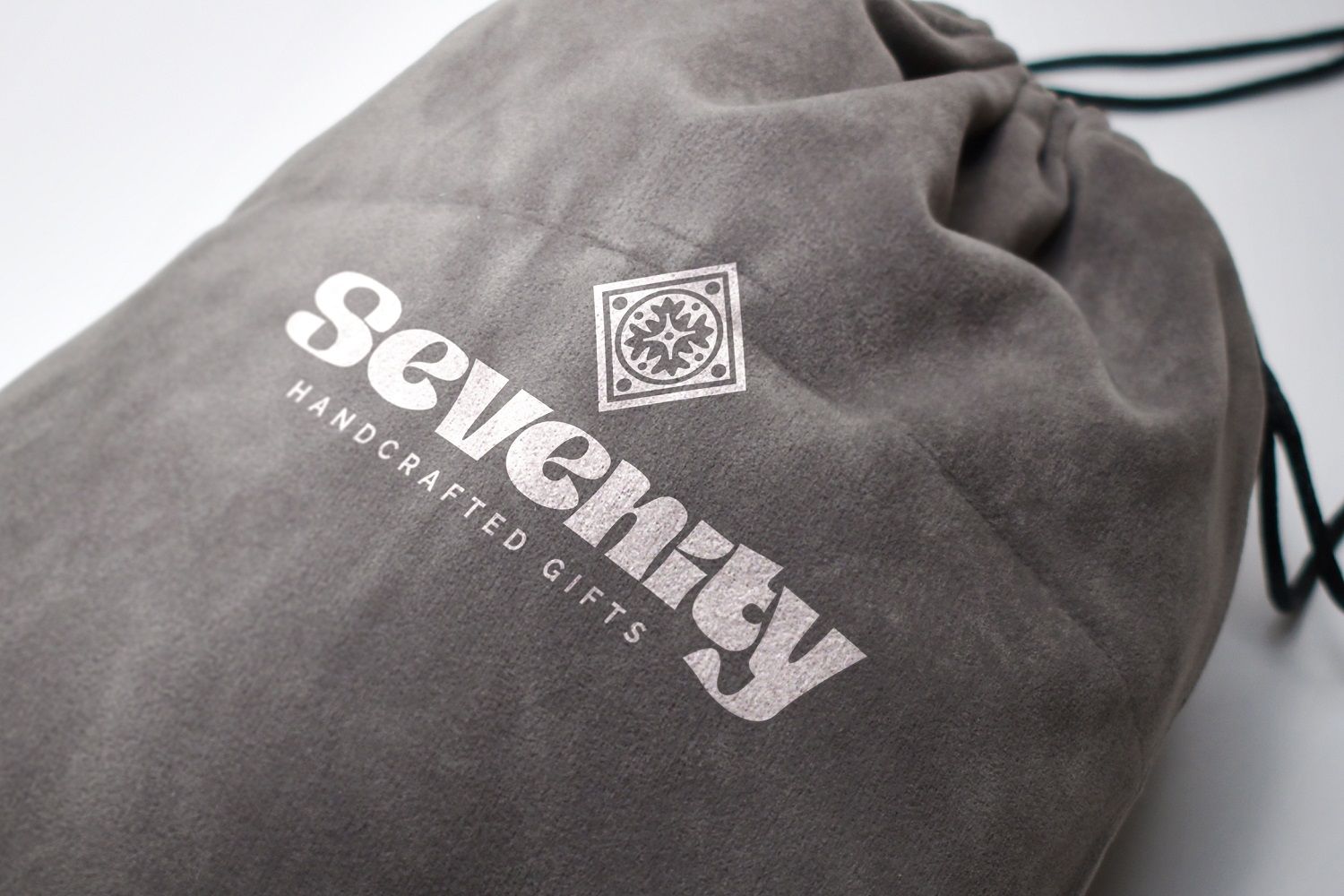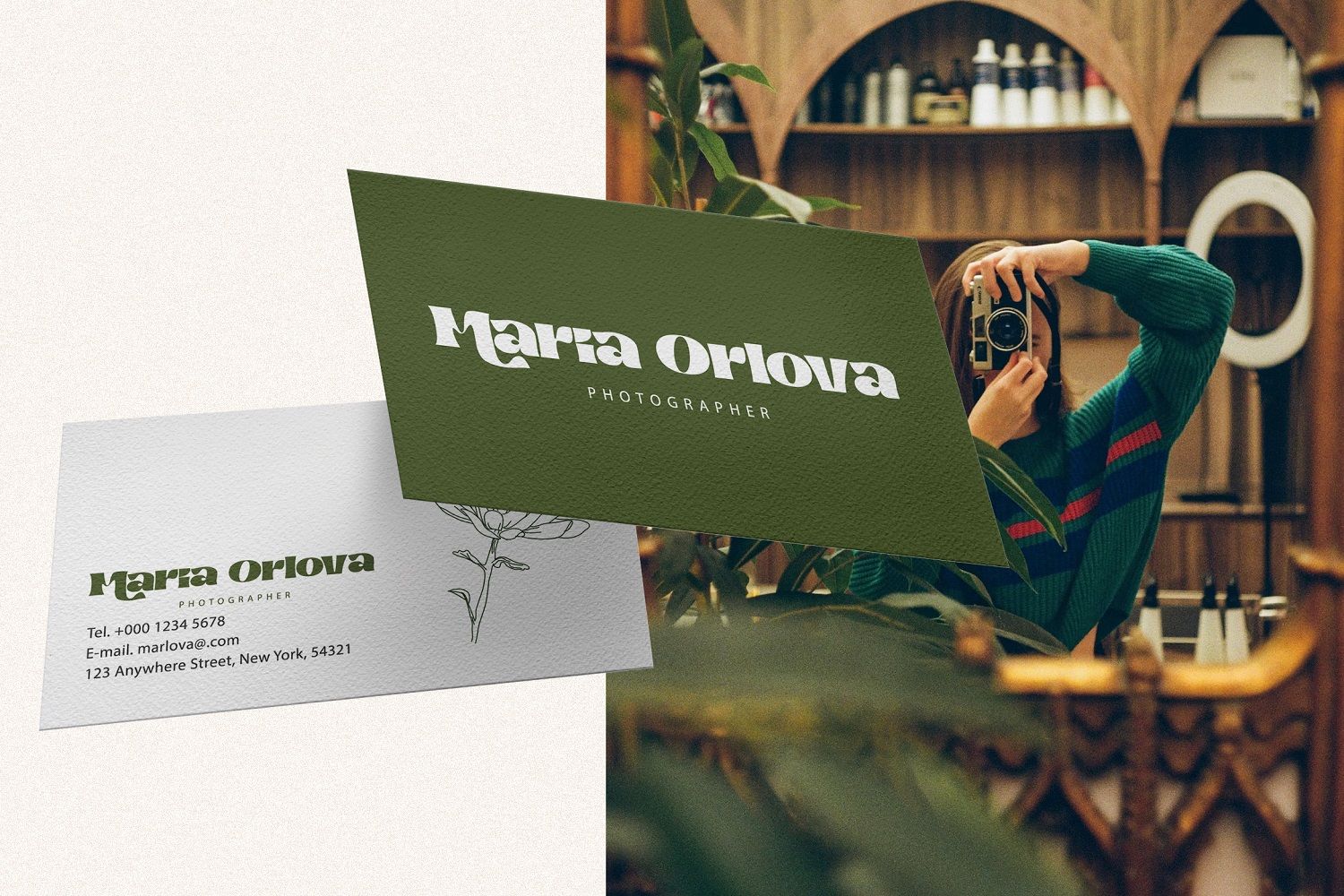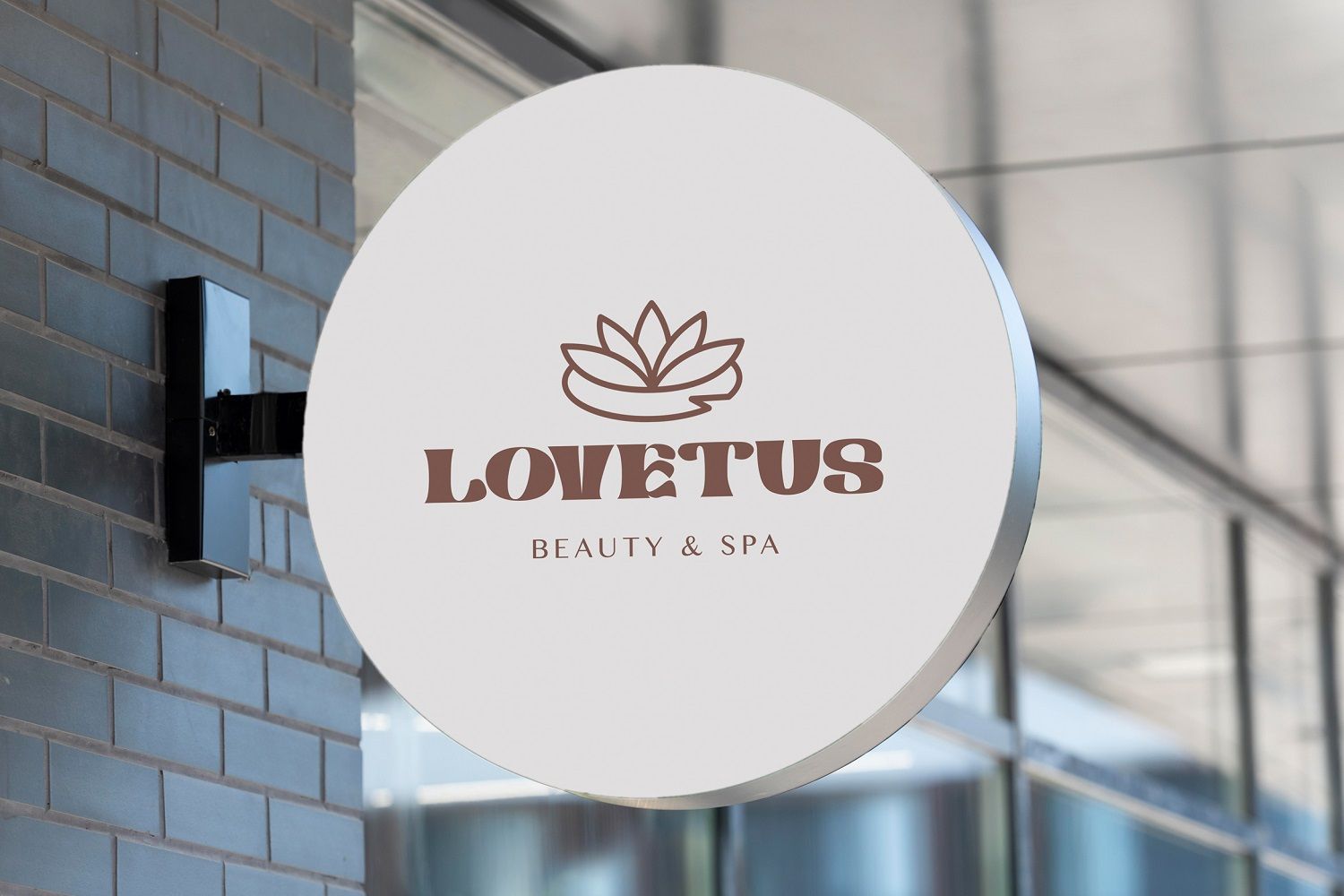
Free Mibaguy Decorative Display Font is a bold, sculpted display face that instantly takes center stage. Its chunky shapes, tight curves, and flat, chiseled terminals give each letter a strong silhouette, while the alternate lowercase forms add playful swashes and unexpected angles. The result is a font that feels both retro and fresh, perfect when you want your title to look handcrafted rather than generic. Free Mibaguy Decorative Display Font works beautifully for logo lettering, food and beverage branding, coffee shop or florist signage, poster headlines, and packaging for artisanal or boutique products.
Because the characters are wide and heavy, this font is best used at larger sizes where its quirky details can shine. Pair Free Mibaguy Decorative Display Font with a simple sans serif for supporting text and you’ll get a rich contrast that still feels cohesive. Use it for social media graphics, event flyers, or label designs whenever you need a big, friendly statement.